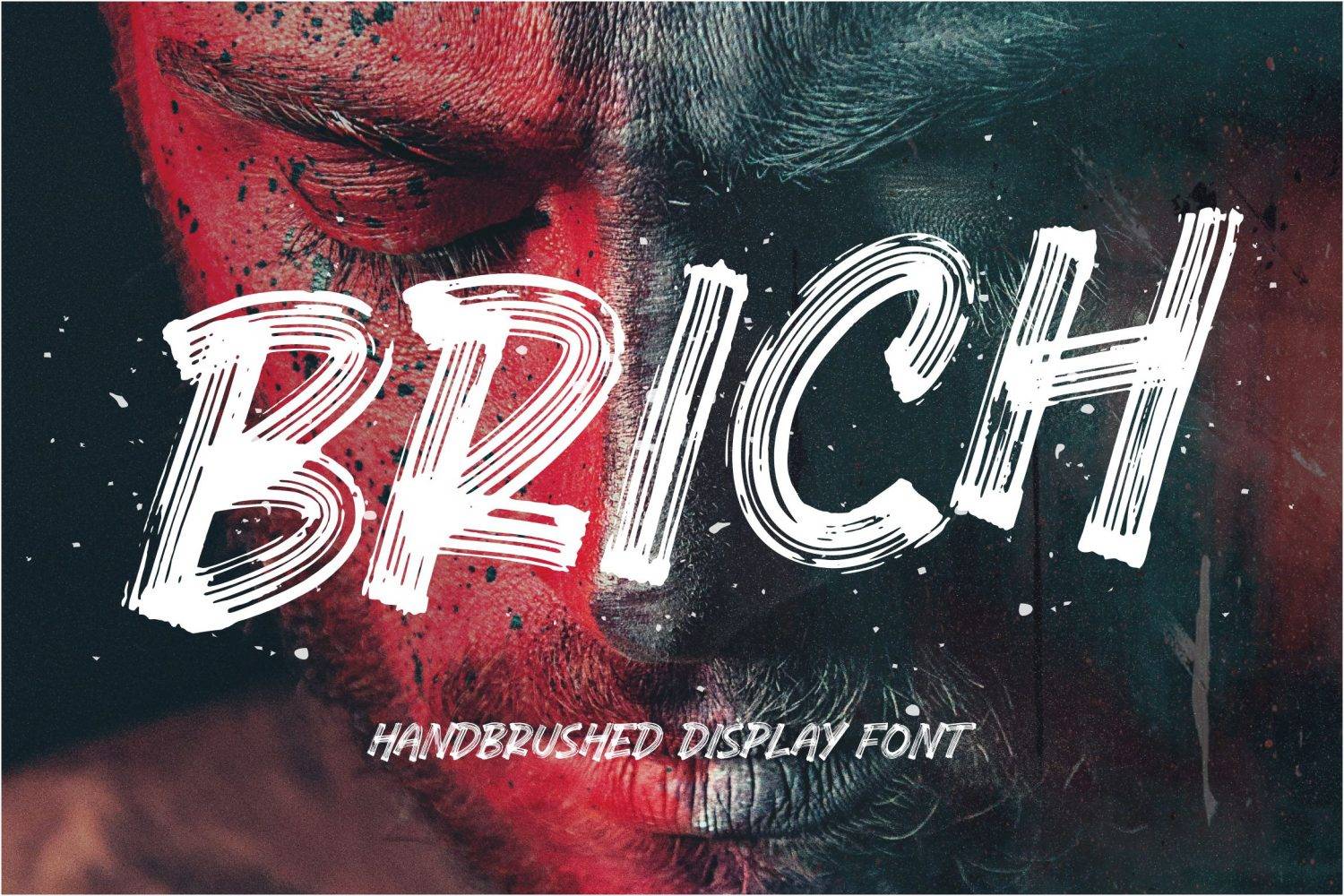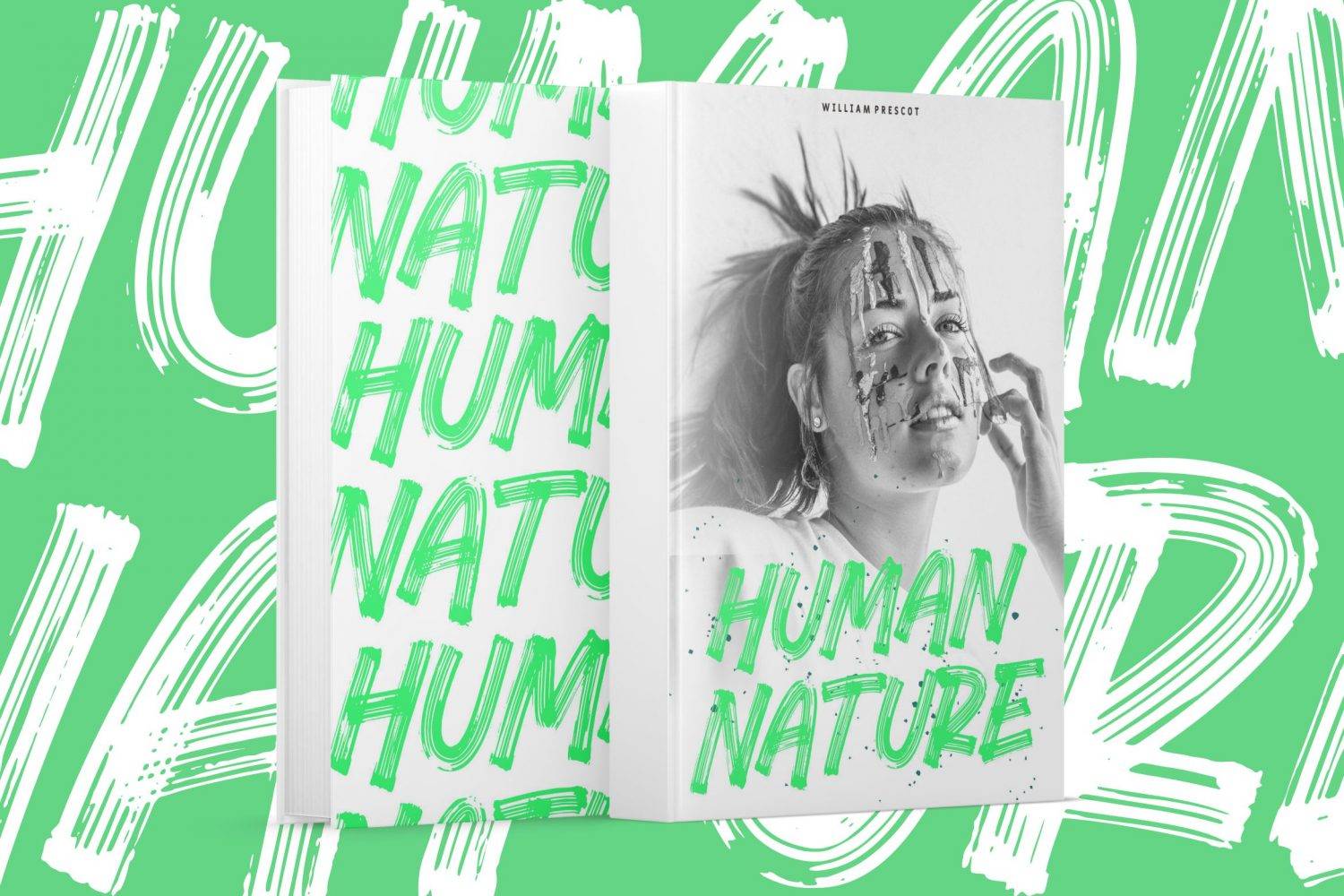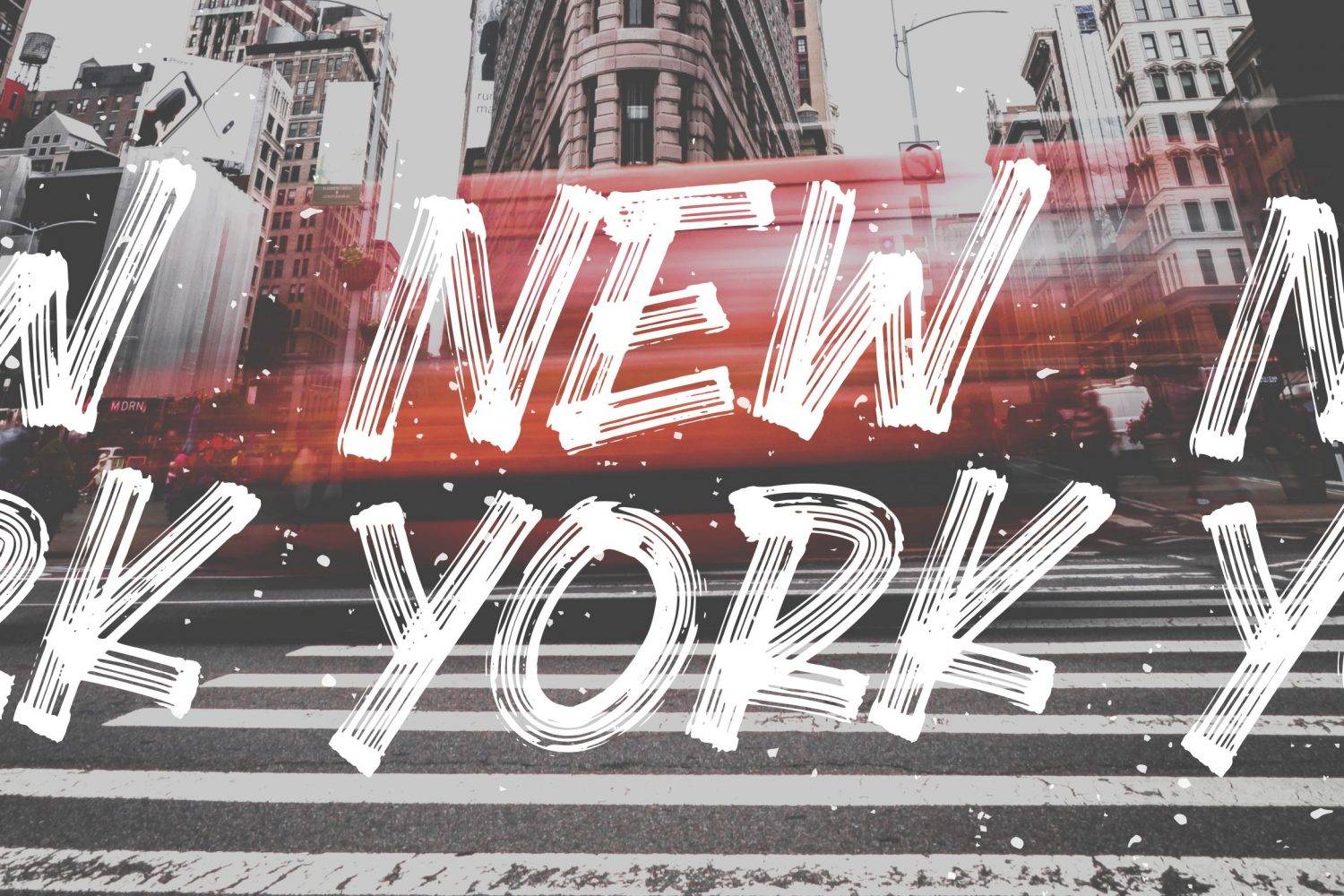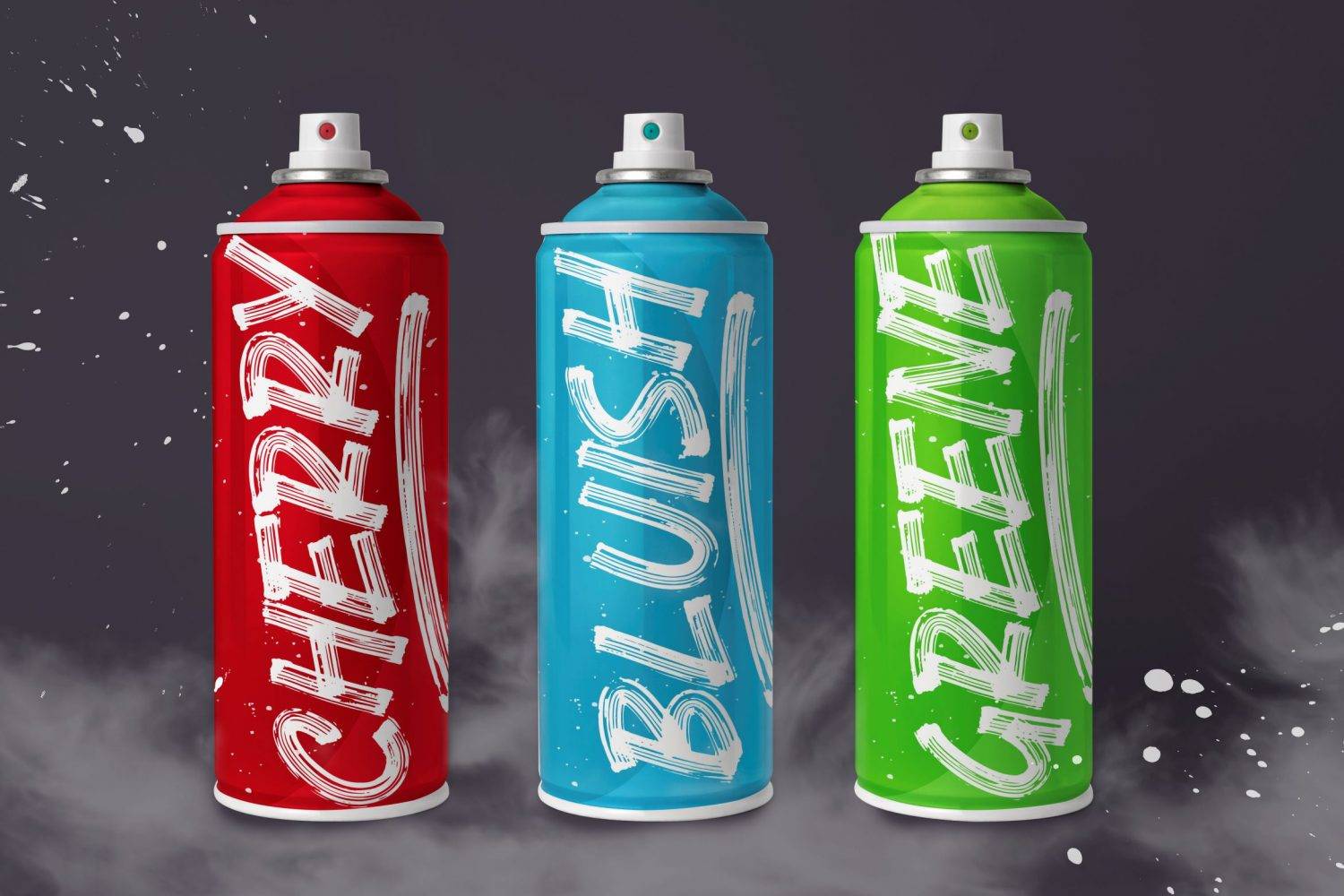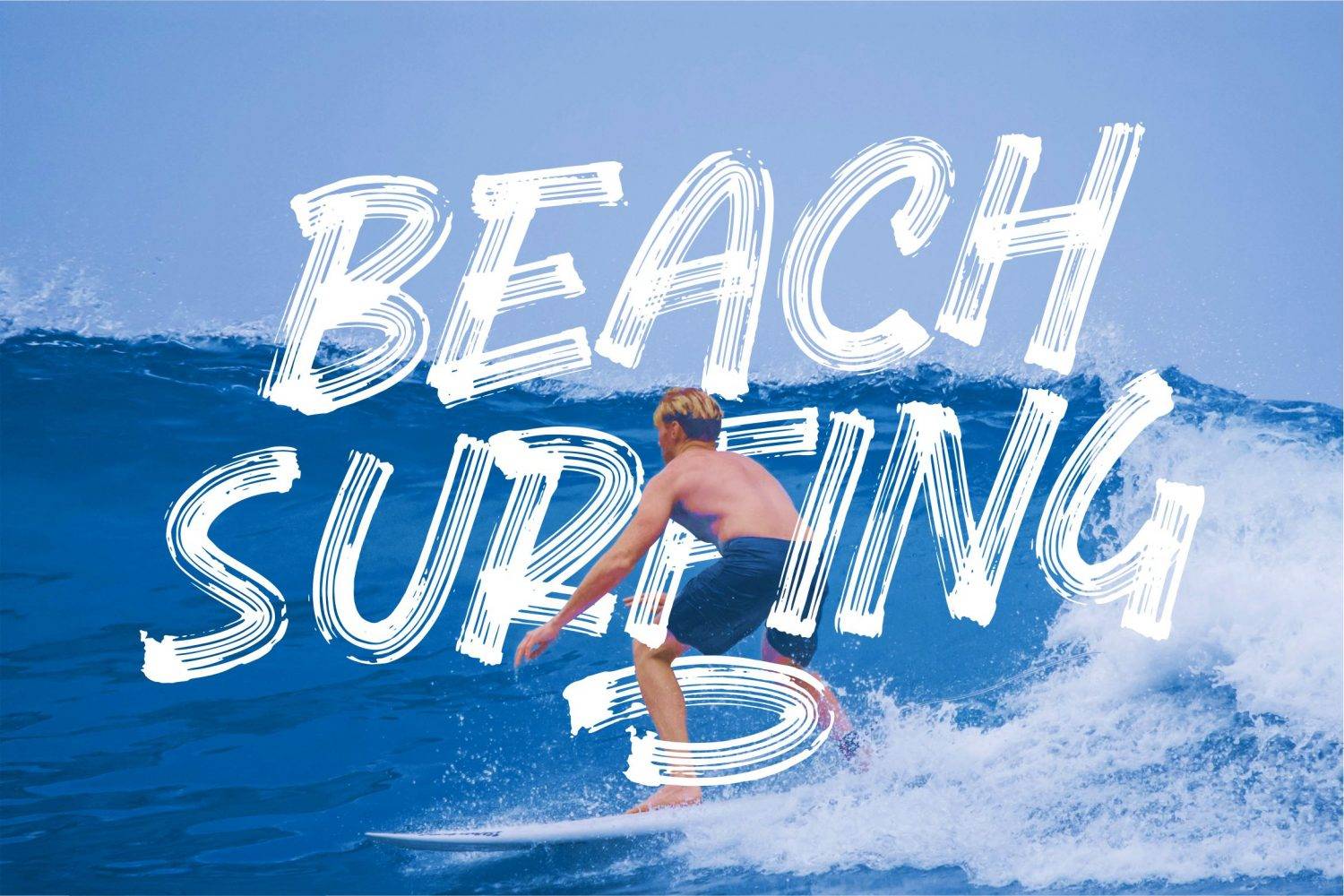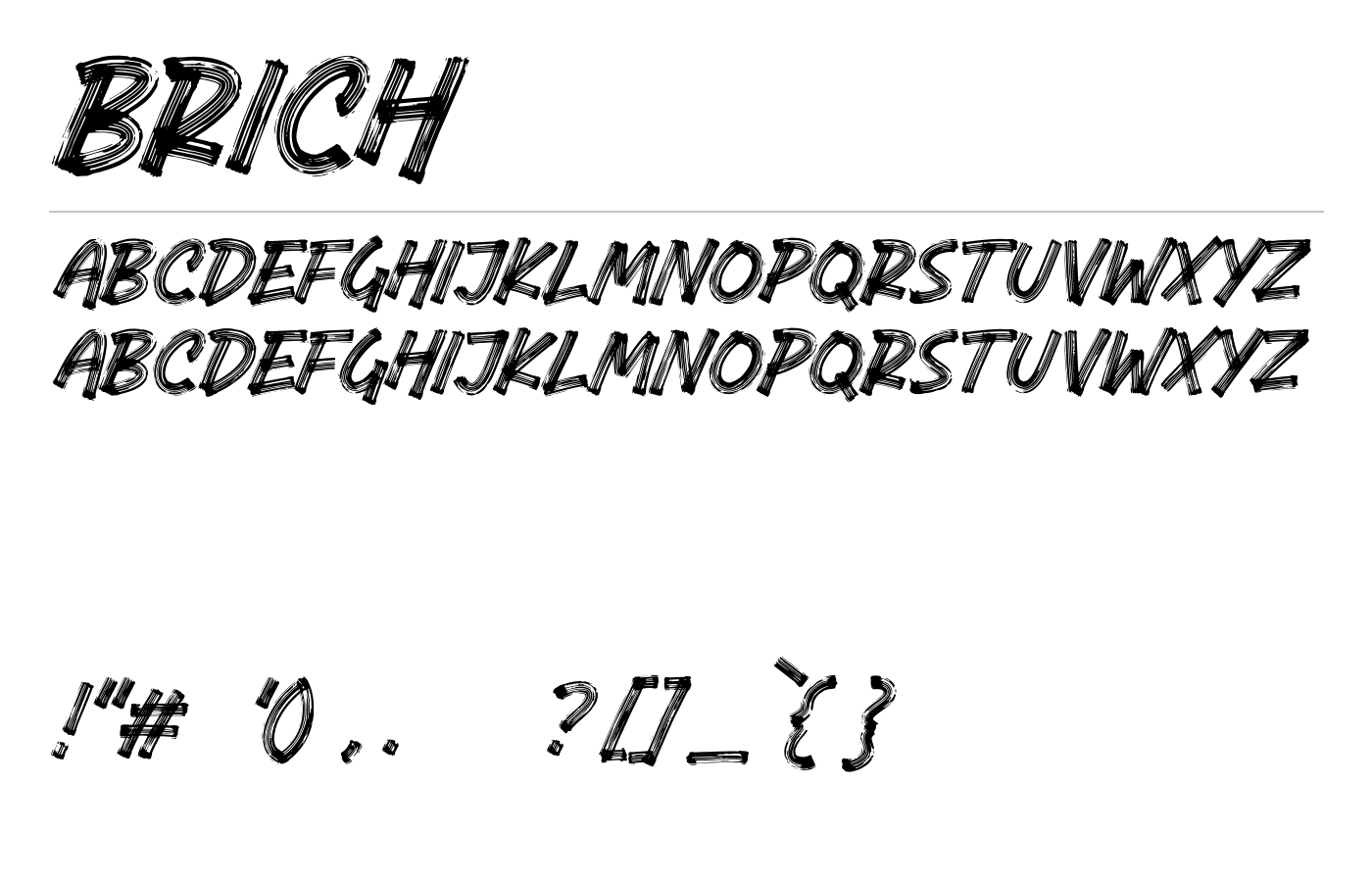
Brich Font is a bold, hand-drawn sans serif with a dynamic and textured brushstroke style that gives it a lively, informal vibe. Its irregular, sketch-like letters make it perfect for creative projects where a casual, energetic feel is desired, such as posters, branding, or playful headlines. This font works best when you want to add personality and a handcrafted touch to your design.
Brich Font
About Brich Font
| Font family | Brich Font |
| Designer | Annas Alam Yahya |